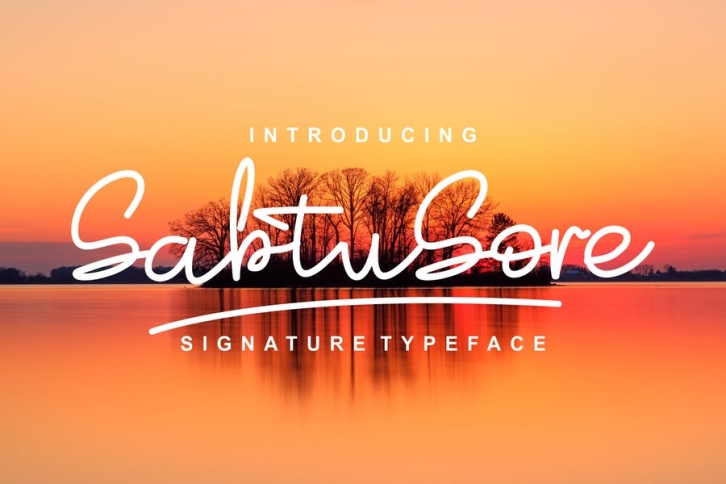
SabtuSore is a signature font with a signature touch, looking soft despite our original handwriting. SabtuSore is perfect for many different projects for example: quotes, blog headers, posters, weddings, branding, logos, fashion, clothing, letters, invitations, stationery, etc.